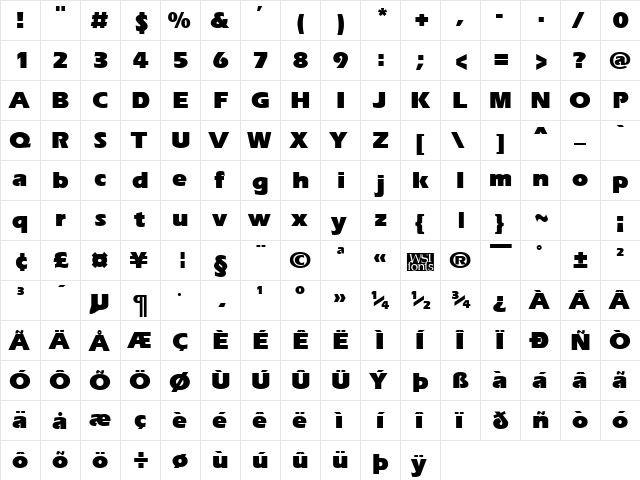
ErgoeBlack Regular Font Preview
ErgoeBlack Regular
Design Context for ErgoeBlack Typeface
ErgoeBlack offers clean, dependable letterforms without strong stylistic allegiance, making it a practical choice for designers who need flexibility.